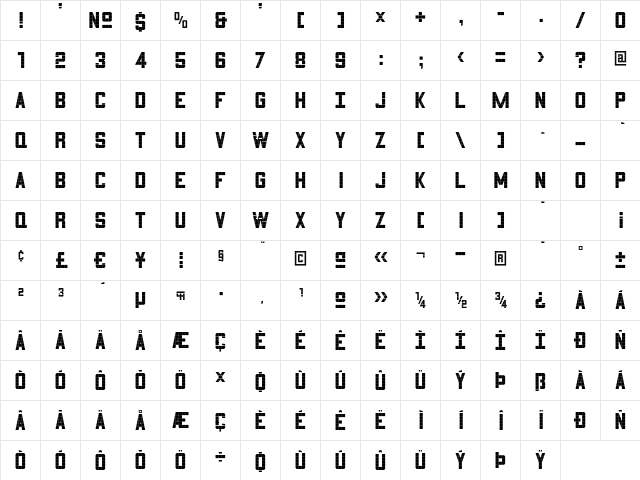
3x5 Regular
Design Context for 3x5 Typeface
3x5 offers clean, dependable letterforms without strong stylistic allegiance, making it a practical choice for designers who need flexibility.